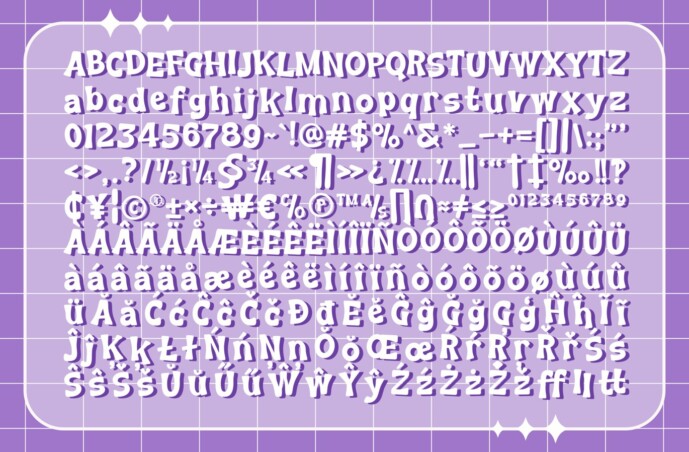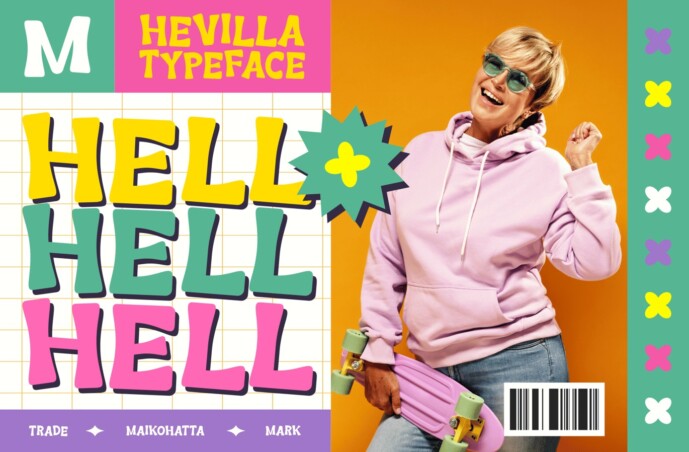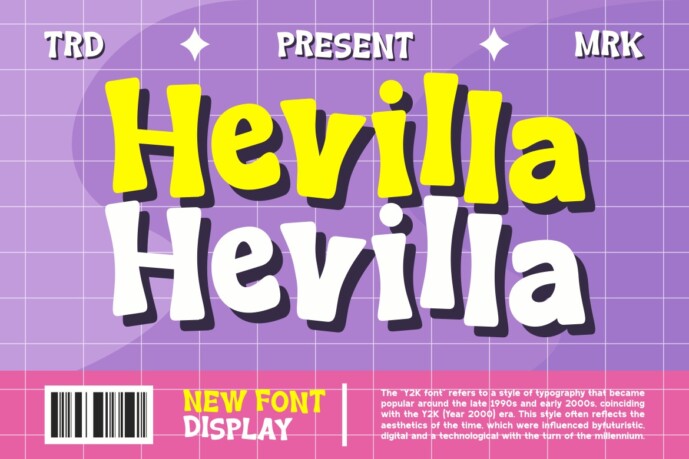
Hevilla Font
Designer: maikohatta
Hevilla Font is a visual representation of the Y2K aesthetic. It features a futuristic style, technology, and digital elements from the early 2000s. This font incorporates elements such as old computer screens, pixels, neon lights, and geometric shapes that are reminiscent of the technological developments of the time.